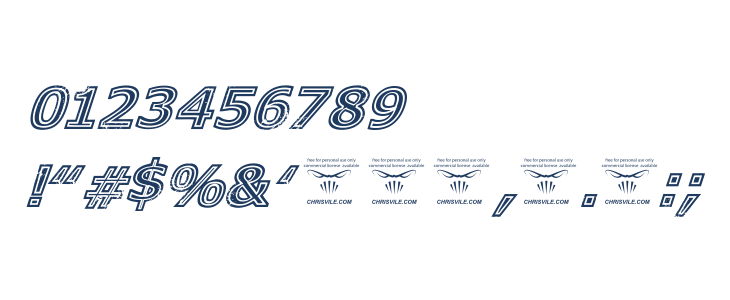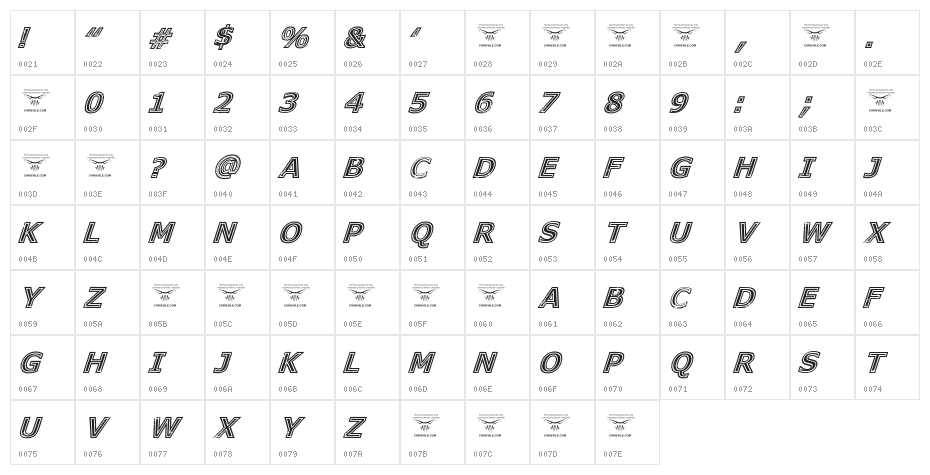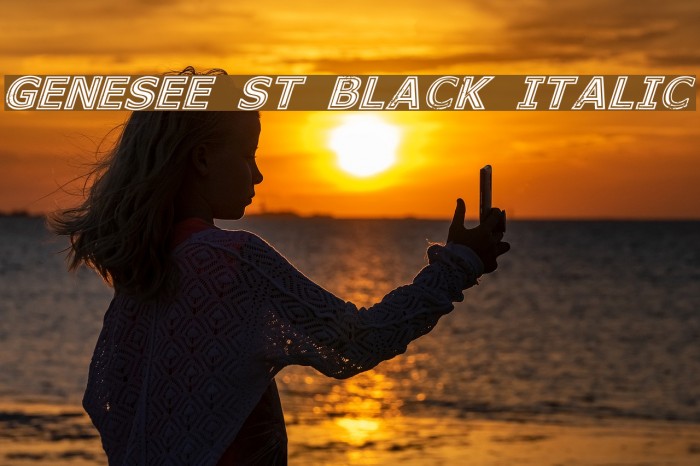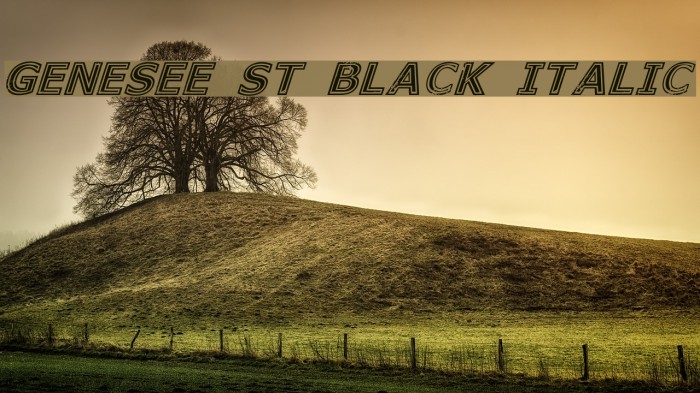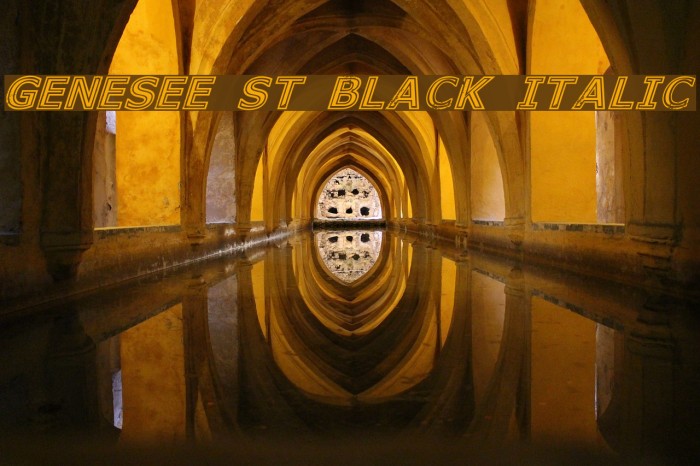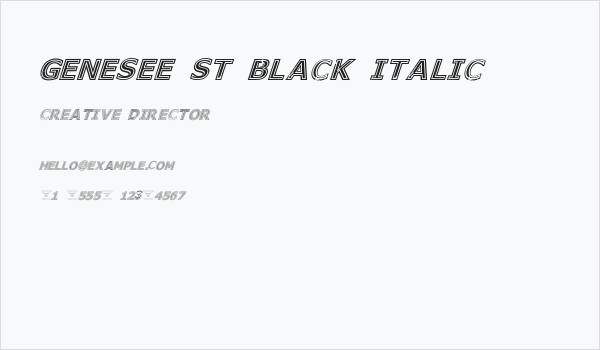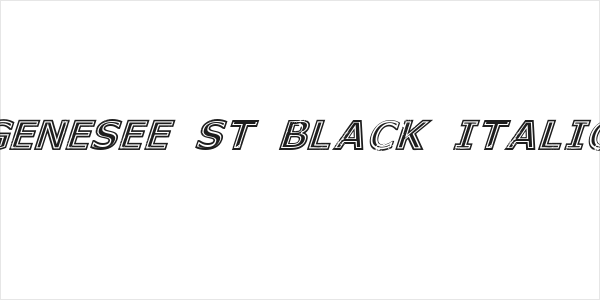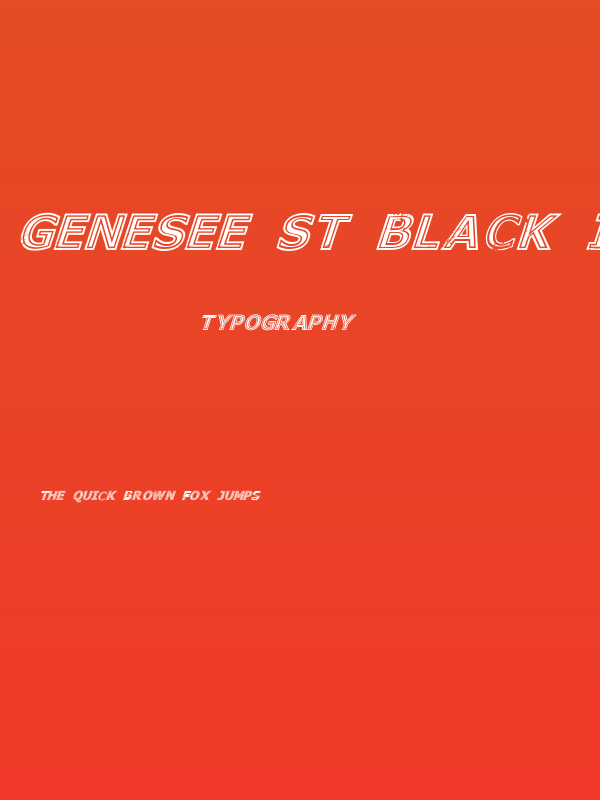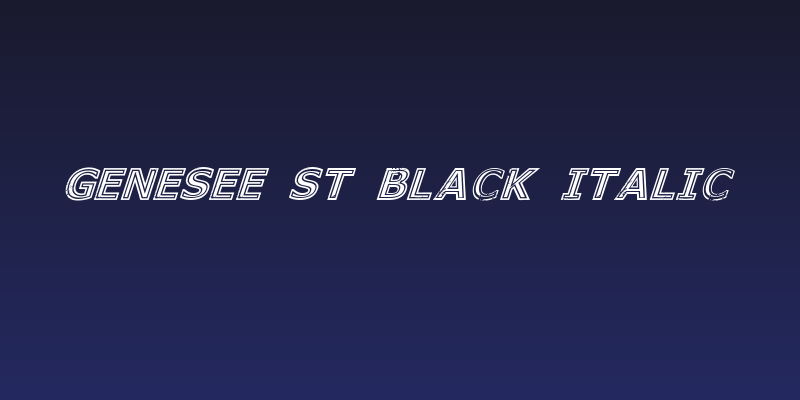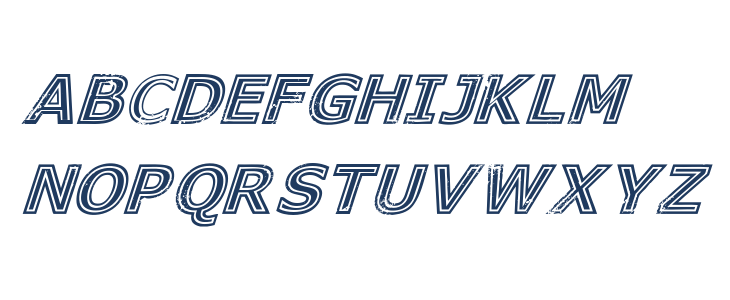
Genesee St Black Italic Font
Genesee St Black Italic Description
This font features a bold and italicized style with a unique distressed texture that gives it a rugged and edgy appearance. The uppercase and lowercase letters maintain a consistent slant, enhancing the italic effect. The numbers and special characters follow the same stylistic approach, ensuring uniformity across all characters. The font's bold weight and textured design make it stand out, suitable for projects that require a strong visual impact. Its distinct style is ideal for creative and artistic applications, where a modern yet gritty look is desired.
| Proposed Projects | Ideal for posters, album covers, branding, and any project needing a bold, artistic touch. |